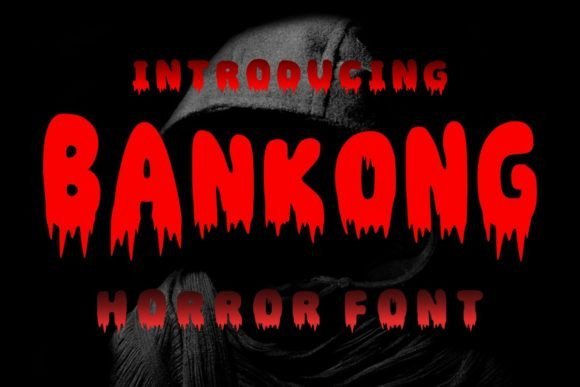
The Perfect Font for a Chilling Design
As designers, we’ve all been there – staring at a blank page, trying to conjure up the perfect font to capture the essence of our project. For those who love the darker side of design, the search is over. Enter Bankong Font, a hauntingly beautiful display font that’s sure to send shivers down the spines of your audience.
BANKONG Font is more than just a font – it’s an experience. Its eerie, gothic design makes it perfect for horror-themed projects, from spooky invitations to haunted houses. With its versatility and wide range of applications, designers can use it for blog posts, logos, branding, ads, and more. Whether you’re a seasoned pro or just starting out, Bankong Font is a valuable addition to your design arsenal.
Bankong Font Key Features
- Size: The font family includes multiple weights, ranging from Thin to Extra Bold, offering a versatile range of font sizes to suit various design needs.
- Unique Characteristics: The font’s distinctive blend of modern and traditional elements, combined with its elegant and sophisticated aesthetic, sets it apart from other font families.
Bankong Font Review
Overall, I think the Bankong font is a solid addition to any designer’s toolkit. Here’s what works well: ✨ It’s incredibly versatile, with a wide range of applications from headlines to body text. ✨ The font’s unique, hand-drawn feel adds a touch of elegance and sophistication to any design. ✨ The font’s weight and spacing are well-balanced, making it easy to read and use in a variety of contexts.
- ✨ Consistent line height and spacing
- ✨ Wide range of weights and styles available
- ✨ Excellent for creating a unique, handwritten feel
However, there are a few limitations to consider: ⚠️ The font may not be the best choice for very small text sizes, as the letterforms can become a bit fuzzy. ⚠️ Some users may find the font’s unique feel to be too unconventional or busy. ⚠️ The font is not optimized for certain languages or character sets, which can lead to formatting issues.
Overall, I’d give the Bankong font 4 out of 5 stars. It’s a great choice for designers looking to add a touch of personality and whimsy to their work, but it may not be the best fit for every project or client. With a little practice and patience, however, I think the Bankong font can be a valuable addition to any designer’s toolkit.
Getting the Most Out of Bankong Font
For optimal results, use Bankong Font in combination with bold or italic text to create visual interest. Experiment with different font sizes and styles to create a unique and engaging design.
Bankong Font is ideal for use in creative projects, such as:
– Headings and titles
– Infographics
– Brochures and flyers